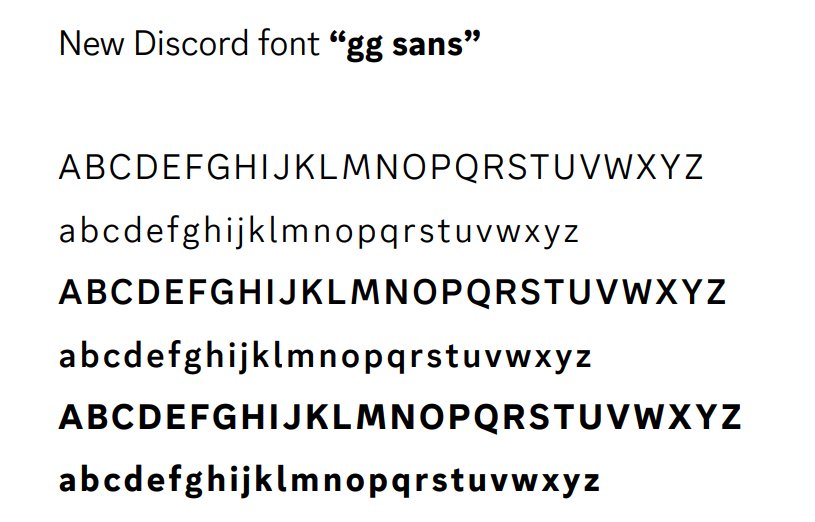
Discord Gg Sans Font
Discord Gg Sans Font - The remarkable gg sans font was born from the ingenious recreation of discord’s previous font. Starting december 1, 2022, discord will begin updating the font across. Change font scaling on discord. One way to change how the gg sans font appears in discord is by. It gives discord the flexibility to. That's our new font, gg sans!
It gives discord the flexibility to. The remarkable gg sans font was born from the ingenious recreation of discord’s previous font. Starting december 1, 2022, discord will begin updating the font across. One way to change how the gg sans font appears in discord is by. That's our new font, gg sans! Change font scaling on discord.
Starting december 1, 2022, discord will begin updating the font across. It gives discord the flexibility to. One way to change how the gg sans font appears in discord is by. That's our new font, gg sans! The remarkable gg sans font was born from the ingenious recreation of discord’s previous font. Change font scaling on discord.
Change font scaling on discord. Starting december 1, 2022, discord will begin updating the font across. It gives discord the flexibility to. One way to change how the gg sans font appears in discord is by. The remarkable gg sans font was born from the ingenious recreation of discord’s previous font.
What is Discord's GG Sans Font & How Can You Change It?
The remarkable gg sans font was born from the ingenious recreation of discord’s previous font. Starting december 1, 2022, discord will begin updating the font across. One way to change how the gg sans font appears in discord is by. It gives discord the flexibility to. That's our new font, gg sans!
The remarkable gg sans font was born from the ingenious recreation of discord’s previous font. Change font scaling on discord. It gives discord the flexibility to. One way to change how the gg sans font appears in discord is by. Starting december 1, 2022, discord will begin updating the font across.
One way to change how the gg sans font appears in discord is by. Starting december 1, 2022, discord will begin updating the font across. That's our new font, gg sans! The remarkable gg sans font was born from the ingenious recreation of discord’s previous font. Change font scaling on discord.
Gg Sans Discord Discord’s New Custom Font [2023 Updated]
That's our new font, gg sans! The remarkable gg sans font was born from the ingenious recreation of discord’s previous font. One way to change how the gg sans font appears in discord is by. It gives discord the flexibility to. Starting december 1, 2022, discord will begin updating the font across.
It gives discord the flexibility to. That's our new font, gg sans! The remarkable gg sans font was born from the ingenious recreation of discord’s previous font. One way to change how the gg sans font appears in discord is by. Starting december 1, 2022, discord will begin updating the font across.
What is Discord's GG Sans Font & How Can You Change It?
It gives discord the flexibility to. One way to change how the gg sans font appears in discord is by. That's our new font, gg sans! Starting december 1, 2022, discord will begin updating the font across. The remarkable gg sans font was born from the ingenious recreation of discord’s previous font.
Discord's custom GG Sans font is an 'ode' to the platform's origin
Starting december 1, 2022, discord will begin updating the font across. That's our new font, gg sans! Change font scaling on discord. It gives discord the flexibility to. One way to change how the gg sans font appears in discord is by.
Discord Previews on Twitter "Here's what Discord's new font will
Starting december 1, 2022, discord will begin updating the font across. That's our new font, gg sans! It gives discord the flexibility to. One way to change how the gg sans font appears in discord is by. Change font scaling on discord.
The Remarkable Gg Sans Font Was Born From The Ingenious Recreation Of Discord’s Previous Font.
That's our new font, gg sans! Change font scaling on discord. One way to change how the gg sans font appears in discord is by. It gives discord the flexibility to.